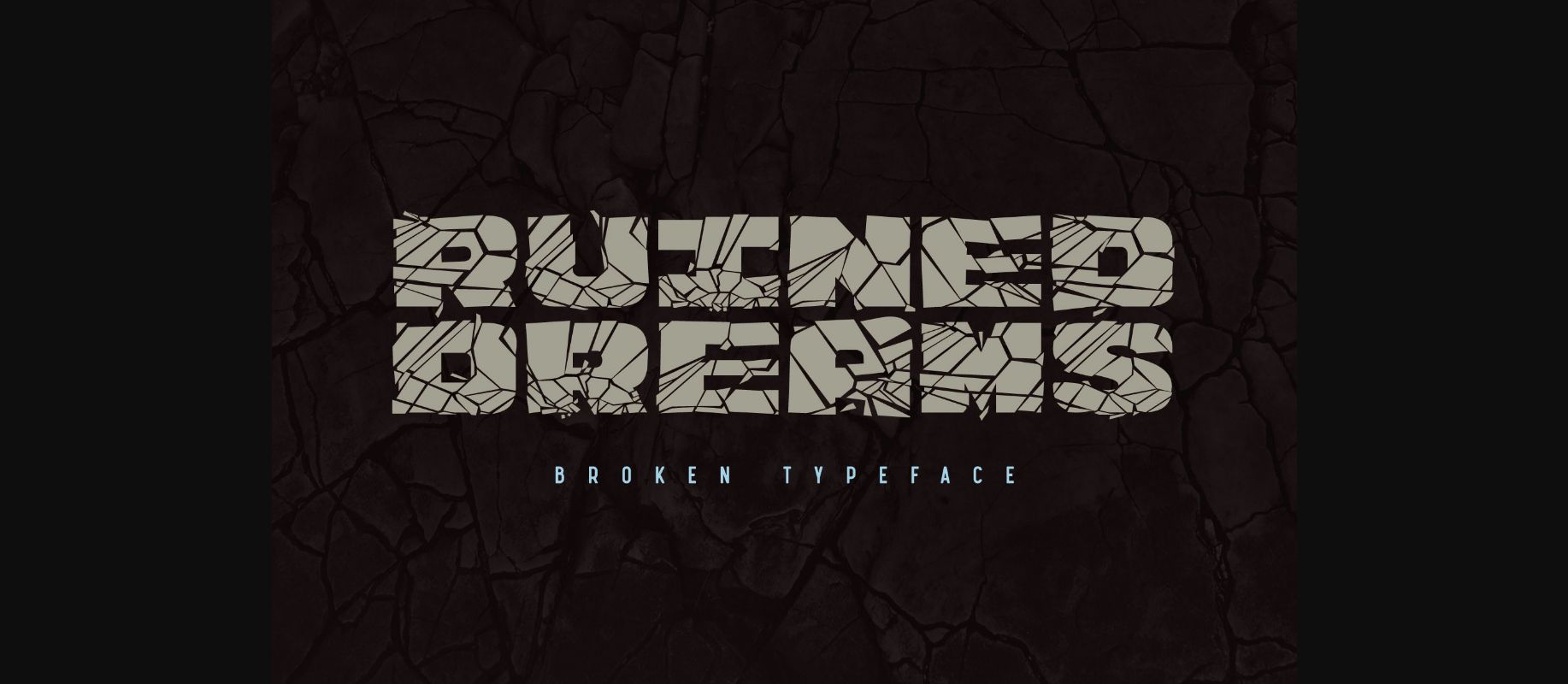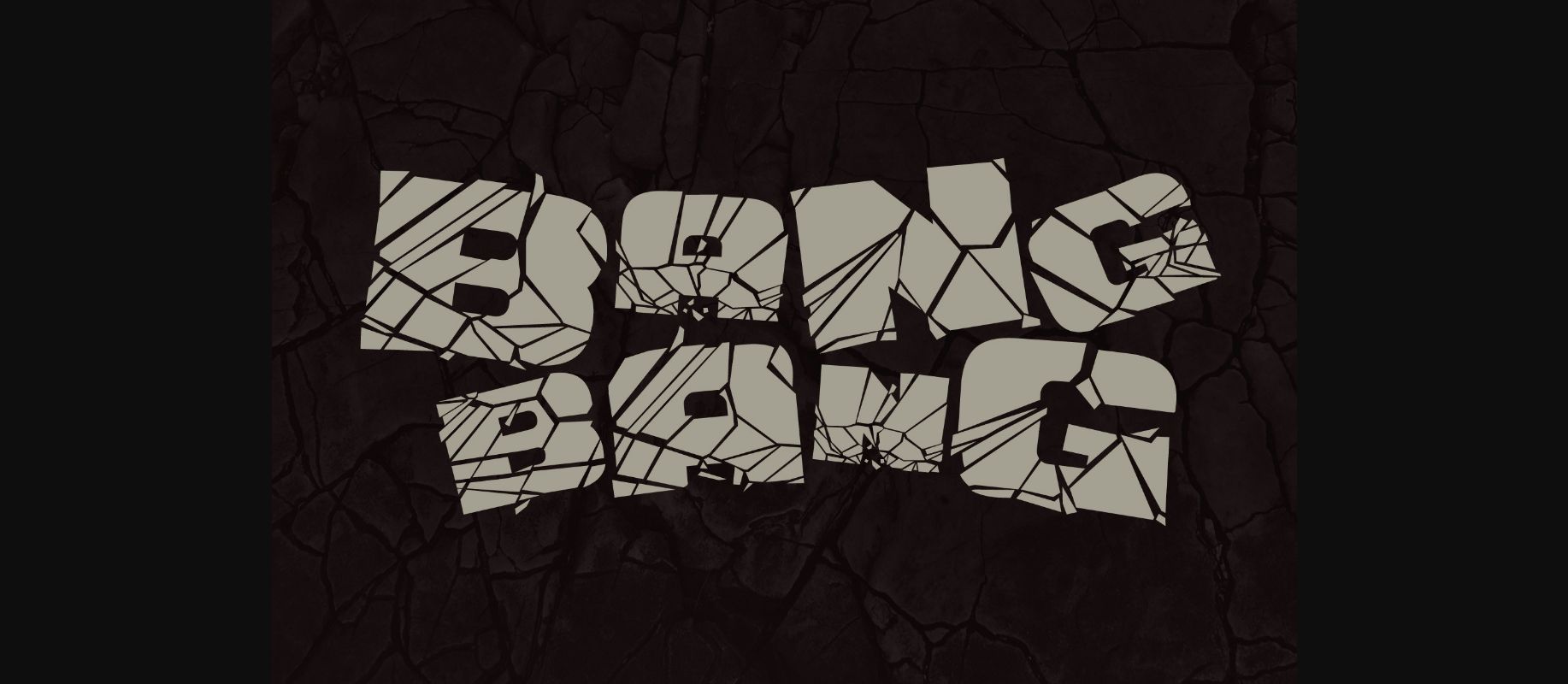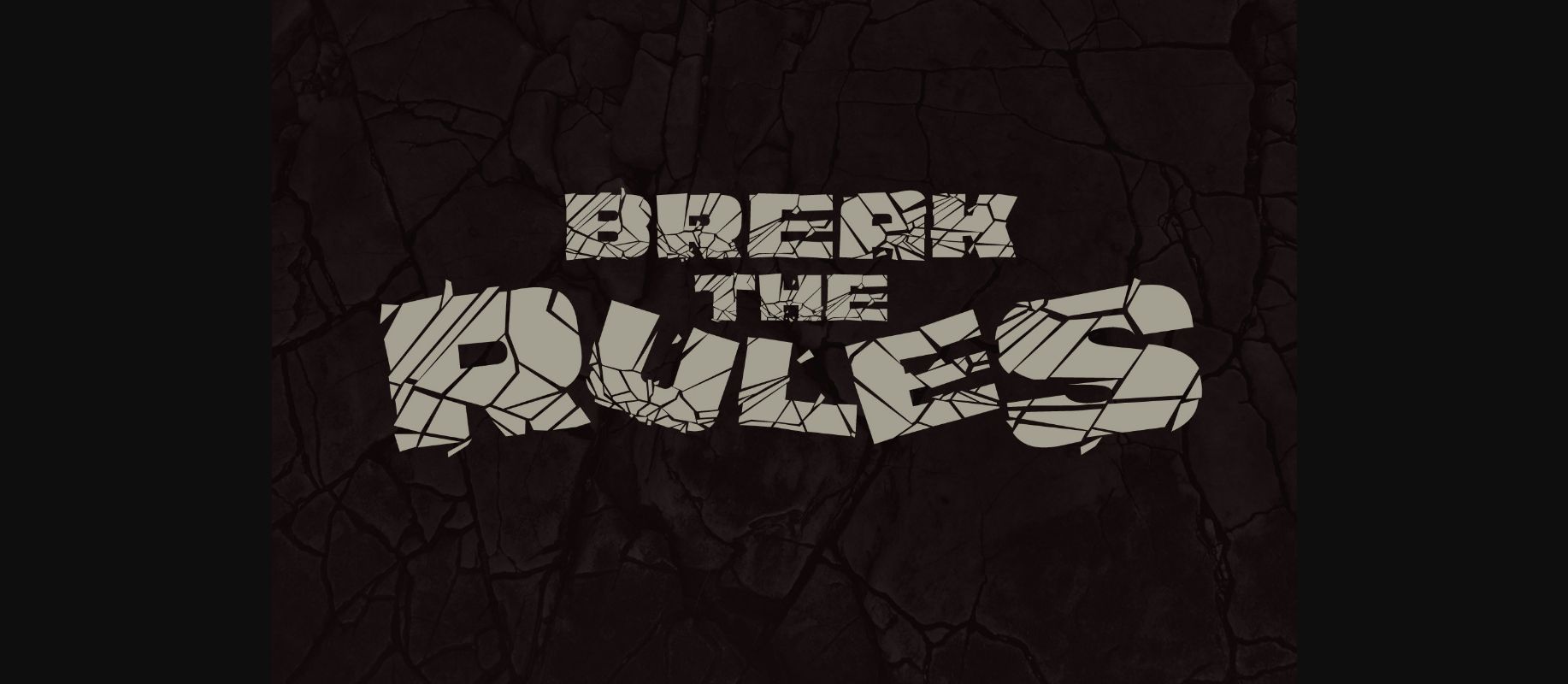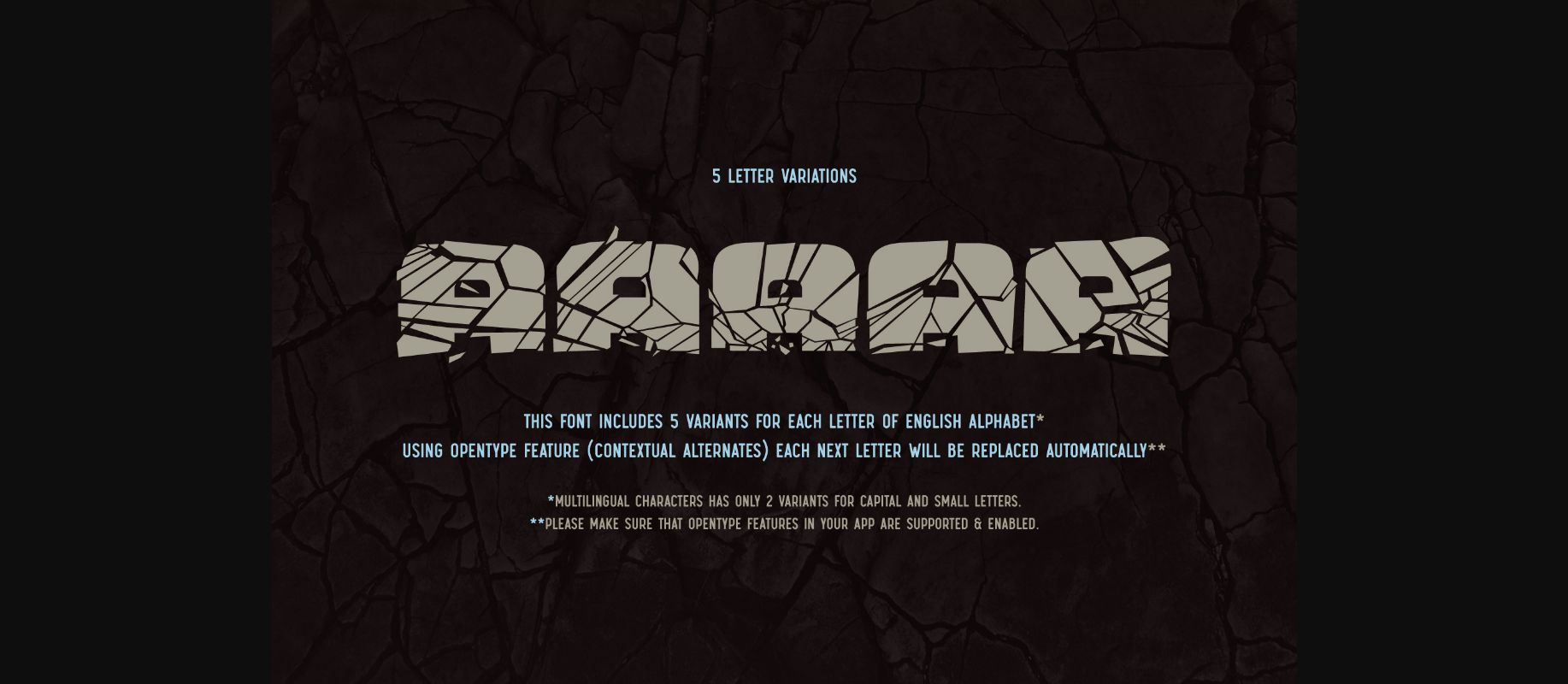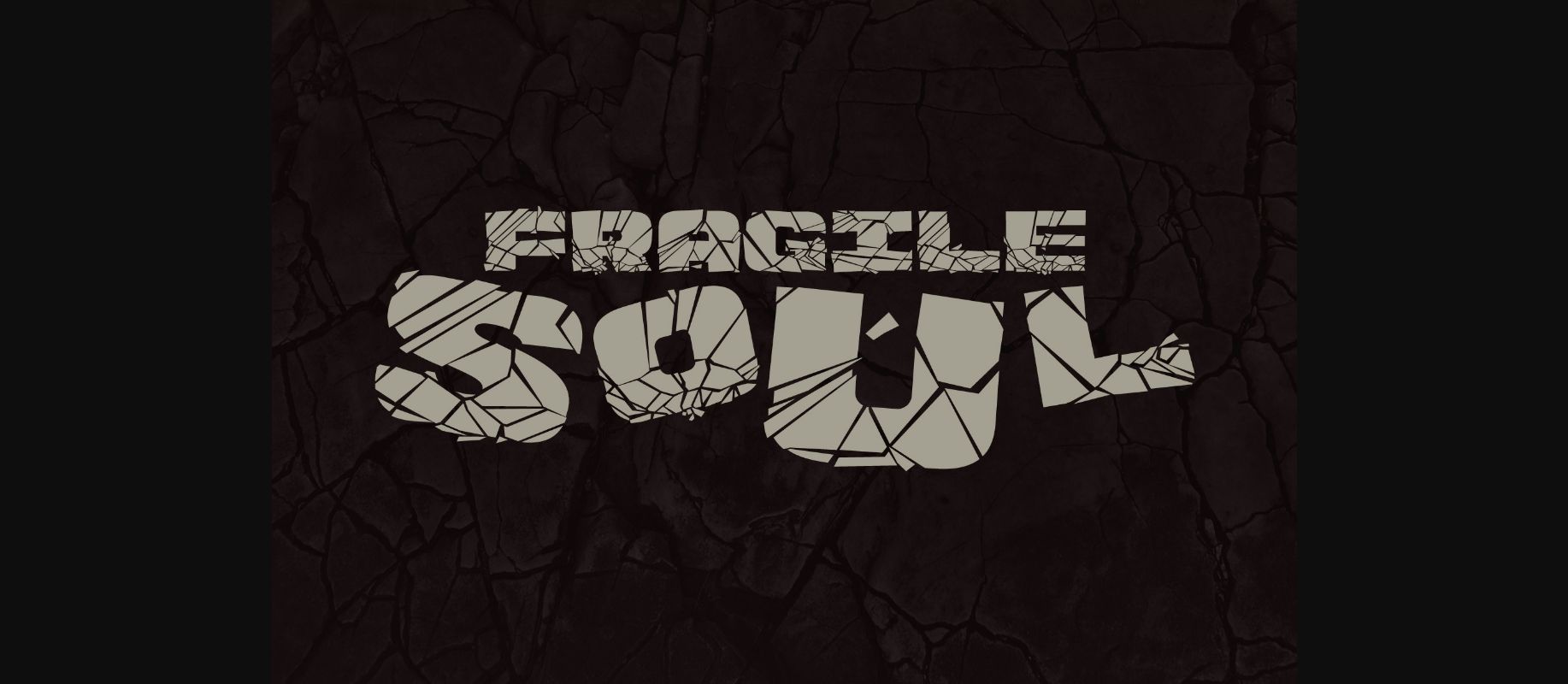
Ruined Dreams Font
About Ruined Dreams Font
Introducing an original bold font with crashed letters. A unique feature of “Ruined Dreams” font is a few variations for each English letter which creates a more natural broken effect. Using the OpenType feature (contextual alternates) each next letter will be replaced automatically.
Note: Multilingual characters have only 2 variants for capital and small letters. Please make sure that OpenType features in your app are supported & enabled.